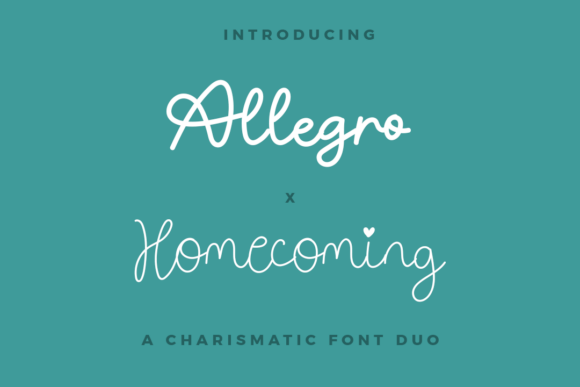
Allegro X Homecoming Duo Font
About the Allegro X Homecoming Duo Font
The Allegro X Homecoming Duo Font offers a perfect balance of form and function for your design needs. Introducing Allegro and Homecoming – an exquisite duo of monoline fonts, capturing the elegance of handwriting with a delightful cursive flair. Made with precision and artistry, Allegro and Homecoming redefine what it means to blend typographic simplicity with intricate detailing, making your textual expressions more fascinating and engaging.